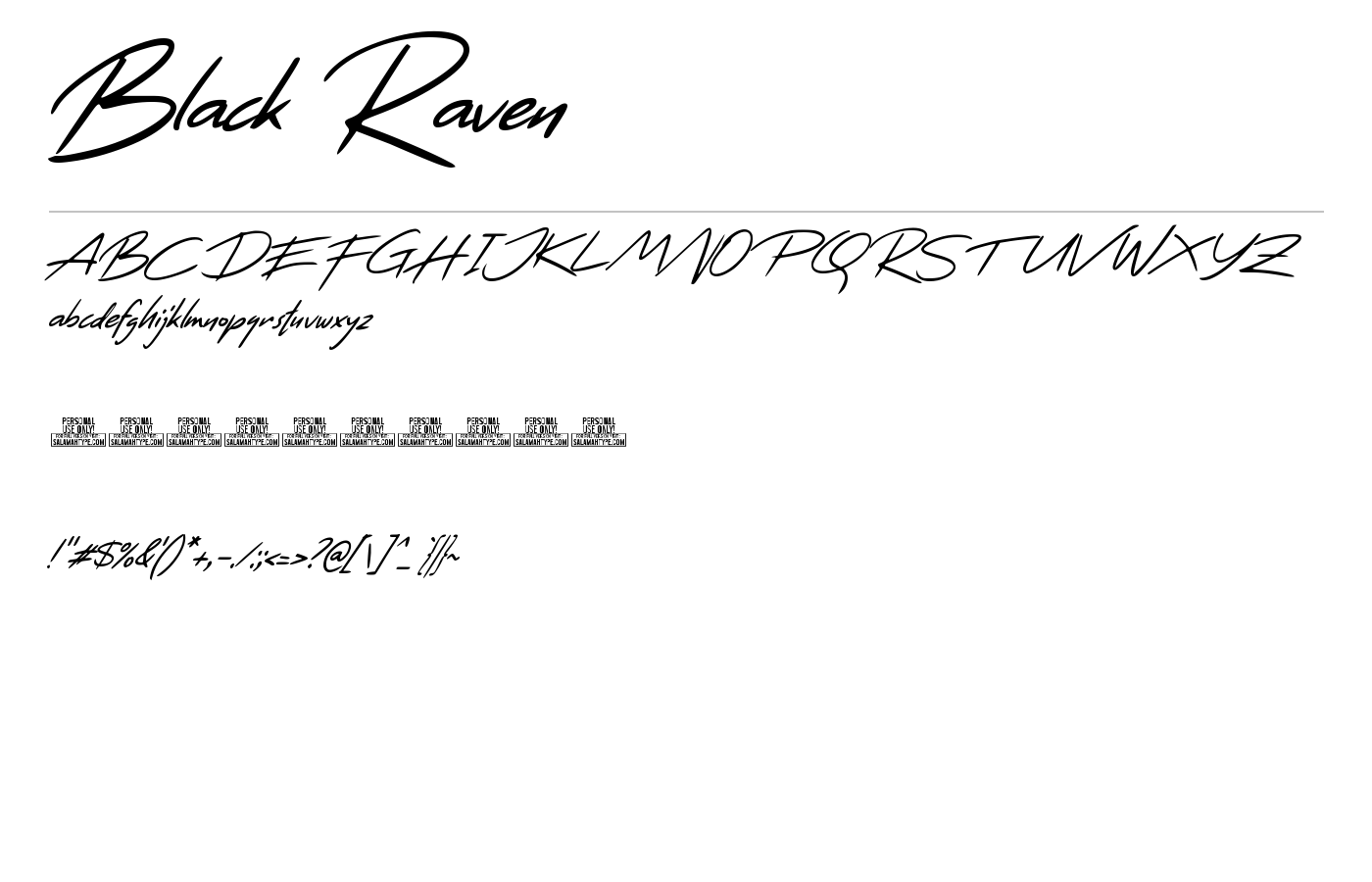
Black Raven is an elegant and dynamic script font with a natural, handwritten flow that combines thin and sharp strokes to create a lively yet refined look. Its slender, slightly condensed letterforms and casual style make it perfect for creative branding, invitations, and editorial headlines where a personal, expressive touch is desired. This font captures a modern, artistic personality that works well to convey sophistication with a relaxed, approachable feel.
Black Raven Font
About Black Raven Font